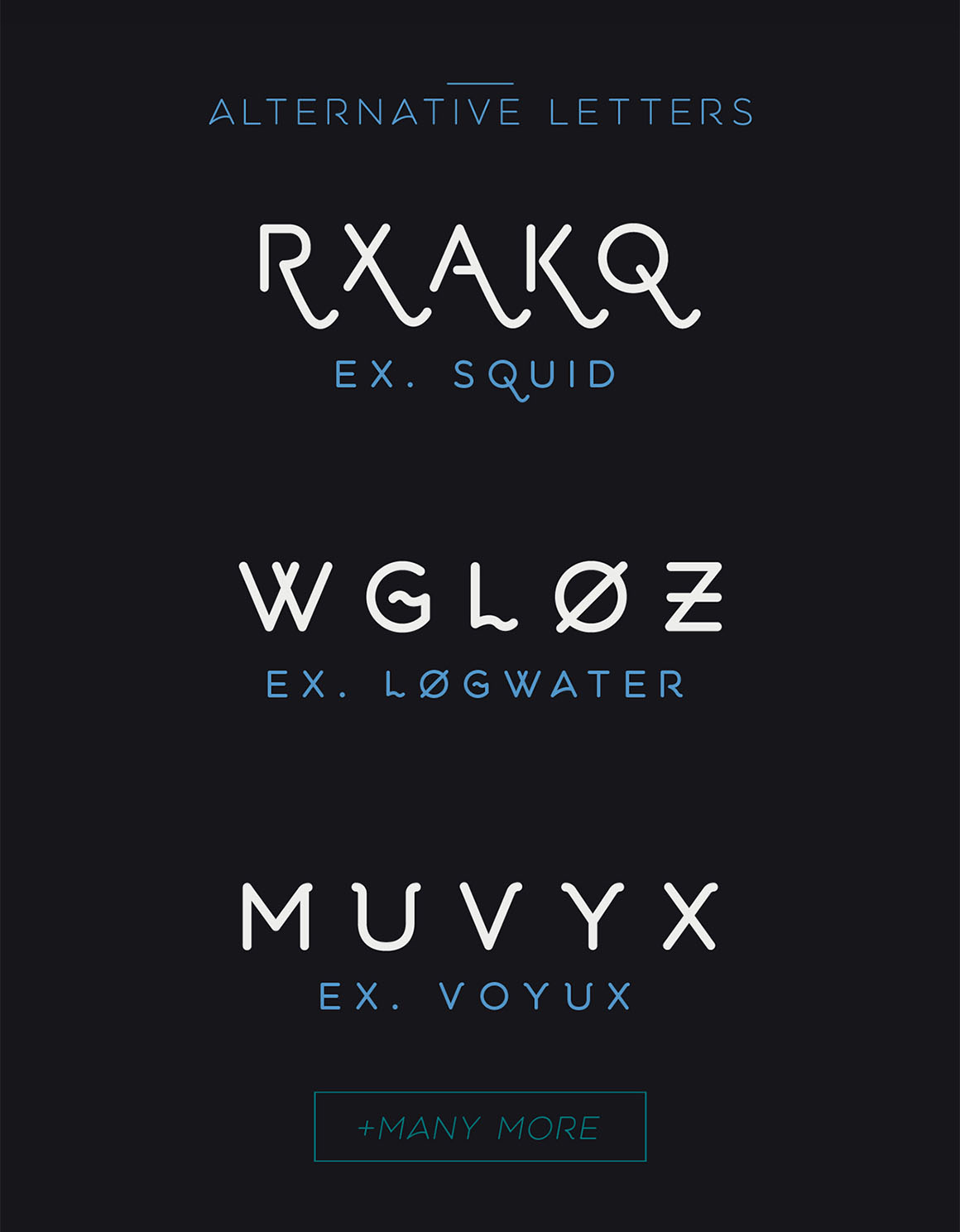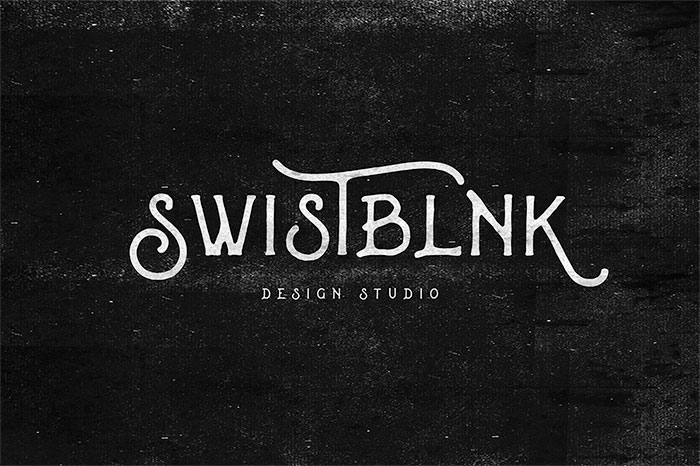
Unique Fonts 2015. Abril fatface with roboto font pairings. These original and unique designs are the definition of imagination.
Glowist (with envato elements subscription) birra stout typeface bold font (free) rezland typeface unique font (free) this free font will be amazing for textual logo designs. Type designers are increasingly prolific and there’s a new design for every possible project, often completely free, or with a free option or weight. We have 872 free stylish fonts to offer for direct downloading · 1001 fonts is your favorite site for free fonts since 2001
You’ll find unusual fonts to compliment any project you can think of—greeting cards, posters, party invitations, and more. These original and unique designs are the definition of imagination. Fresh unique and best free fonts for designers.
When Pairing It, You Must Have Something Subtle And Clean Like Roboto, Which Is A Sans Serif Style Font.
Slim grooves, symmetry and perfect spacing are everything in this tribute font to the etched letter plates of yesteryear. New super fonts are available for commercial use and perfect for headlines, headings and graphic designs. Font generator & font changer is fun and handy, just copy these stylish beautiful design text and paste them anywhere such as in facebook, twitter, whatsapp, snapchat, instagram bio.
This collection focuses on typeface families from reputable type designers and foundries that contain multiple weights and styles. Photoshop fonts #1 acimetr the font features simple, easy to read letters which will be appropriate for any image conveying an important message. Gypu features a various tools and awesome symbols in mathematical,.
Nimitz Is One Of Those Effortlessly Stylish Free Fonts That Makes You Give Thanks To The Internet (Image Credit:
York whiteletter font is designed by pilaster davy. It has a handmade feel (it was created with a sharpie), and will shine on both small and large displays, and from websites to posters. 2015 continues to be a fantastic year for fonts.
Riesling Is A Retro Font With A Fancy Style Created By Bright Ideas.
Abril fatface with roboto font pairings. You may be interested in the following modern related articles as well. For your convenience, fixthephoto team has selected the best free fonts for photoshop suitable for various types of photography.